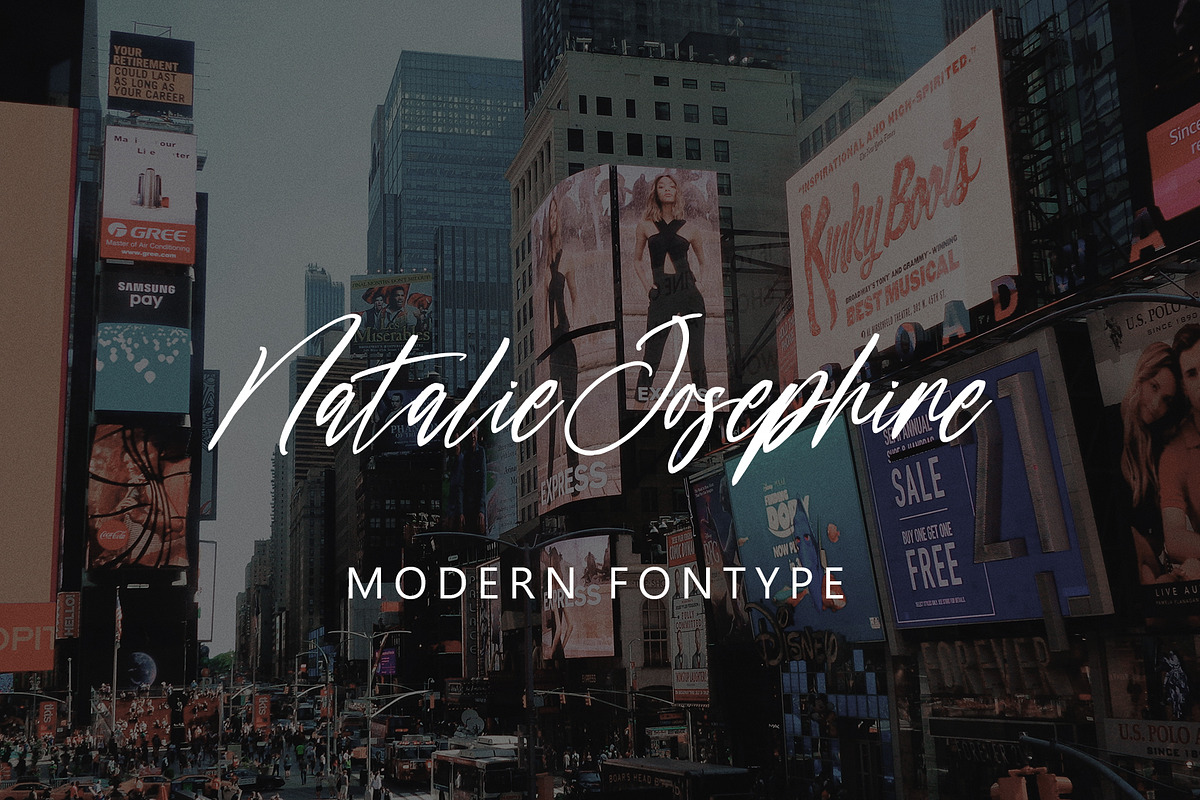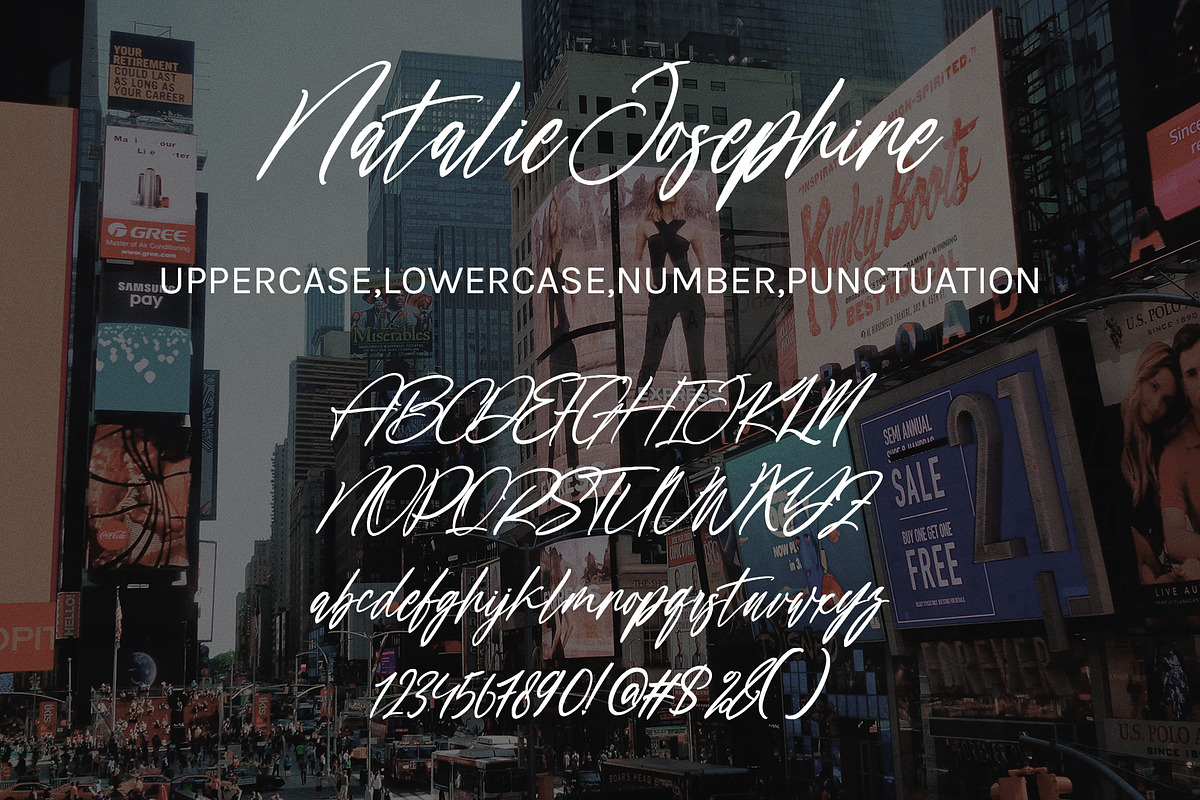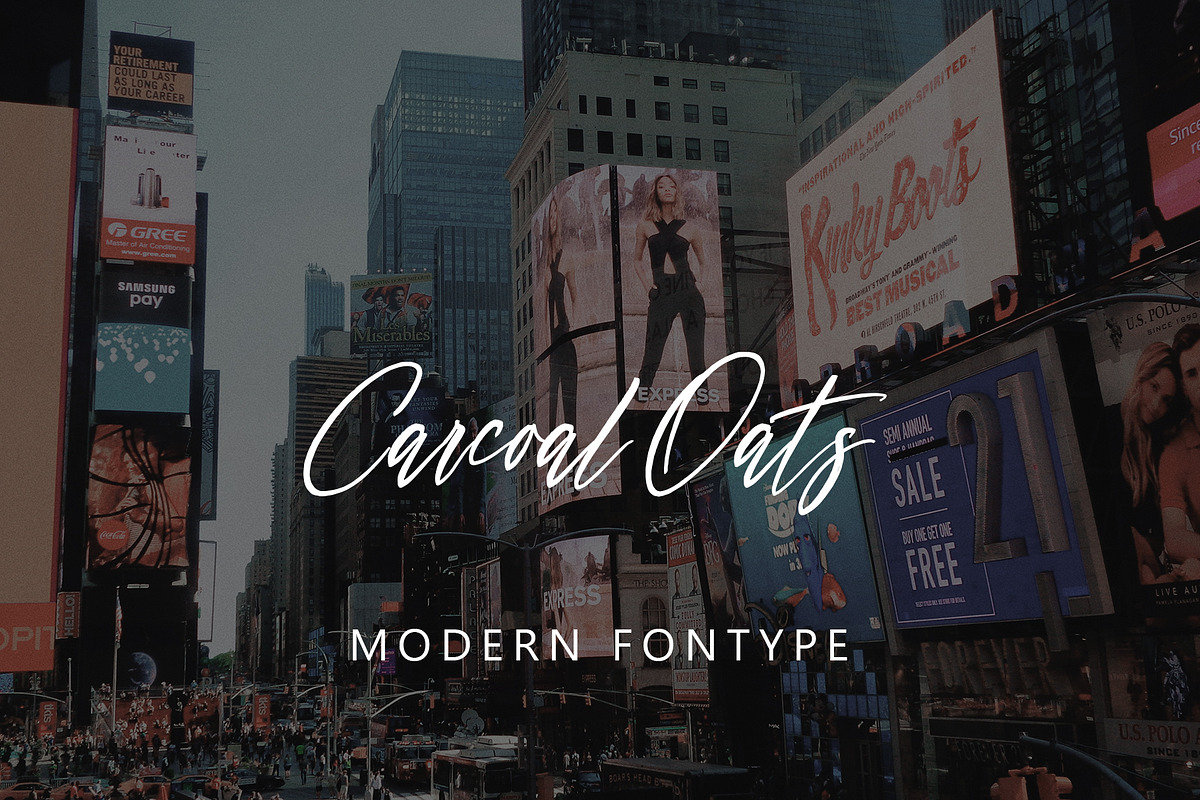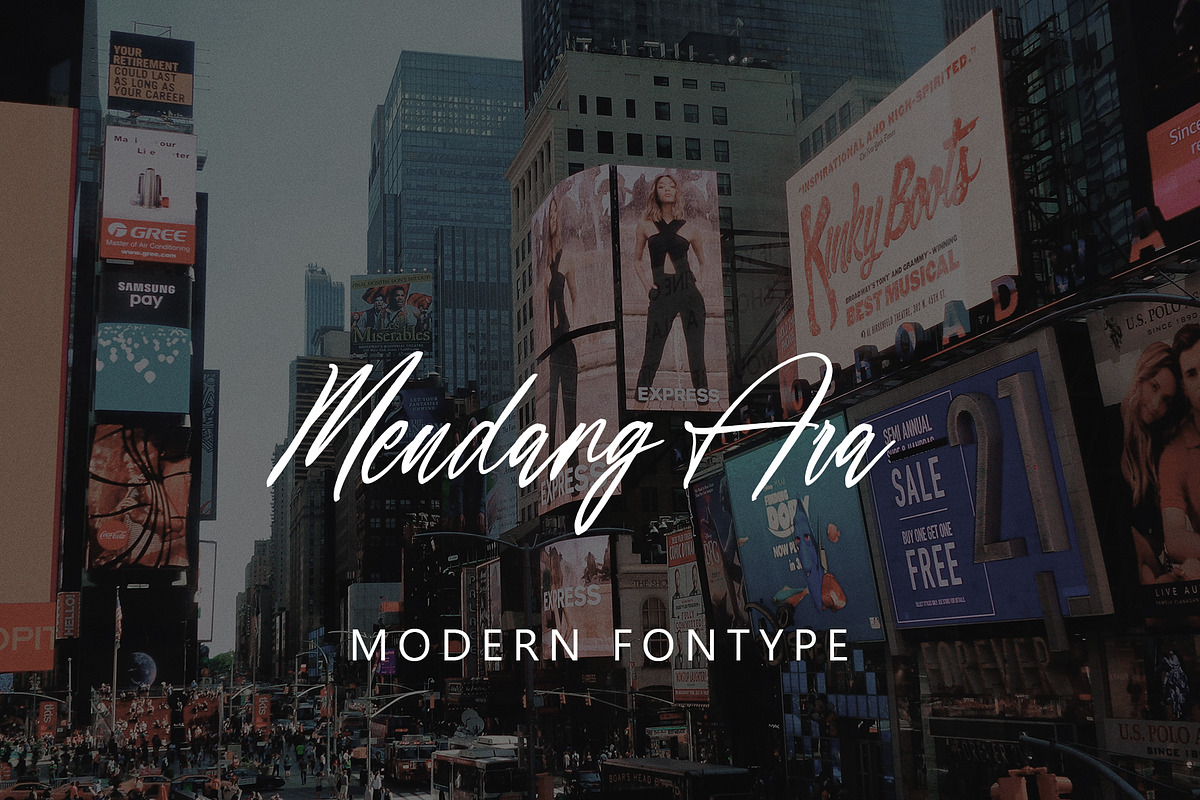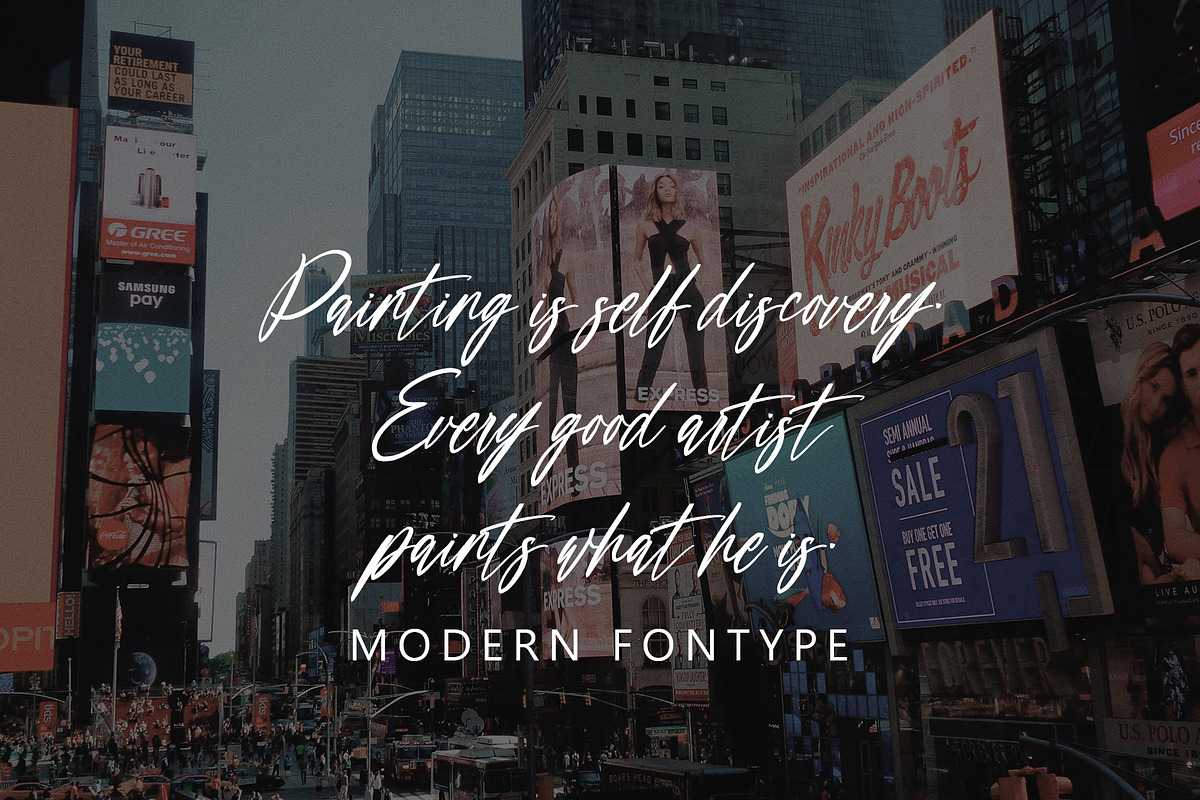
Natalie Joshepine
Natalie Joshepine with new style, this font will perfect for many different project ex: quotes, logo, blog header, poster, banding, letter, invitation, stationery, etc...